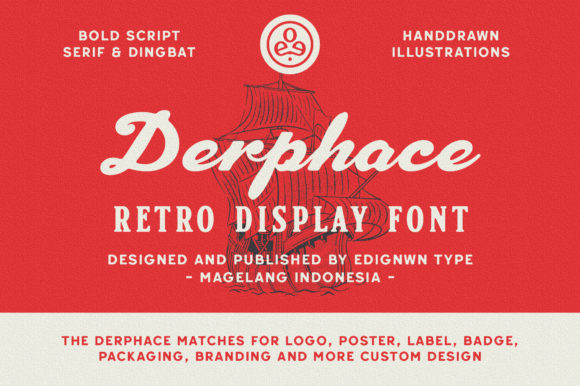
The Retro Charm of Derphace Font: A Designer’s Delight
I still remember the design project that led me to discover Derphace Font. I was working on a branding project for a vintage-inspired clothing line, and I was struggling to find the perfect font that would capture the essence of the 80s and 90s. The client wanted something unique, something that would make their brand stand out. After hours of searching, I stumbled upon Derphace Font, and it was love at first sight! 💕
What Makes Derphace Font Special?
Derphace Font is a retro and unique display trio font that consists of serif, script, and dingbats. It’s perfect for any branding project that requires a vintage vibe, such as logos, t-shirt printing, and creative products. This font is PUA encoded, which means you can access all the glyphs and swashes with ease. 🤩
- ✨ Unique and retro design that adds a touch of nostalgia to any project
- 💯 Highly versatile and can be used for various design projects
- 🎉 Fun and playful dingbats that add a creative touch
While Derphace Font is an amazing font, there are a few things to keep in mind: ⚠️ The font can be a bit overwhelming for small text sizes, so it’s best used for headlines or titles. 🤔 Some of the glyphs and swashes can be a bit tricky to navigate, but once you get the hang of it, it’s a breeze!
The Backstory of Derphace Font
Derphace Font was created by a talented designer who’s passionate about creating unique and creative fonts. The designer wanted to create a font that would capture the essence of the 80s and 90s, with a mix of serif, script, and dingbats. The result is a font that’s both retro and modern, perfect for designers who want to add a touch of nostalgia to their projects.
| Font Name | Derphace Font |
| Author | Edignwn Type |
Q: Is Derphace Font suitable for body text?
A: While Derphace Font is a beautiful font, it’s best used for headlines or titles. It’s not recommended for body text, as it can be a bit overwhelming for small text sizes.